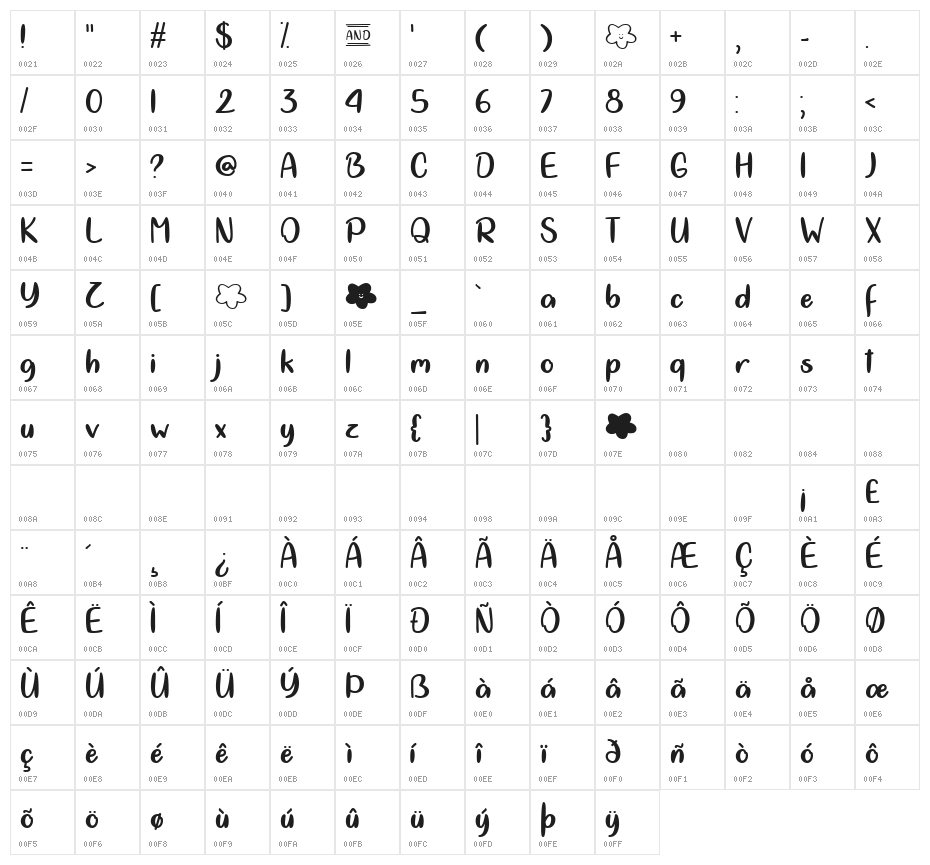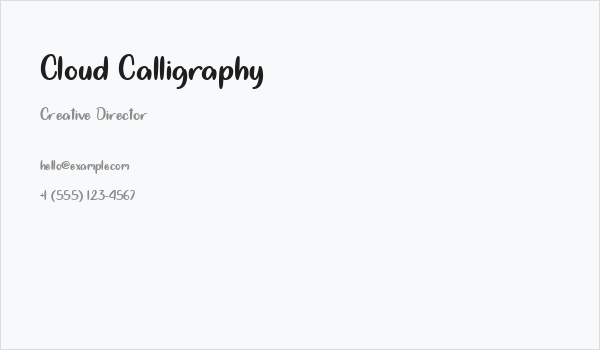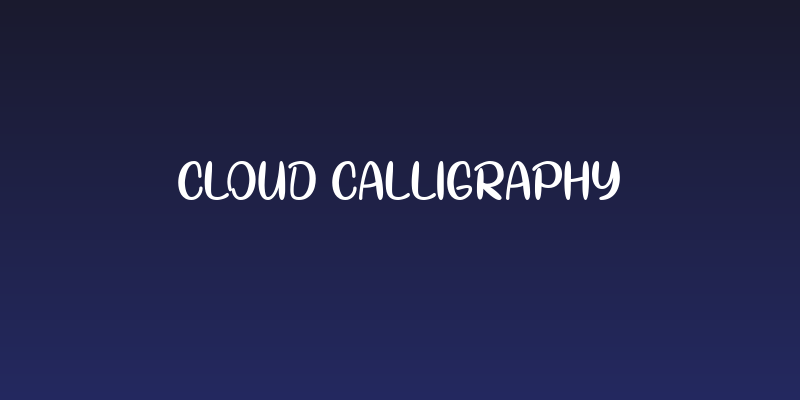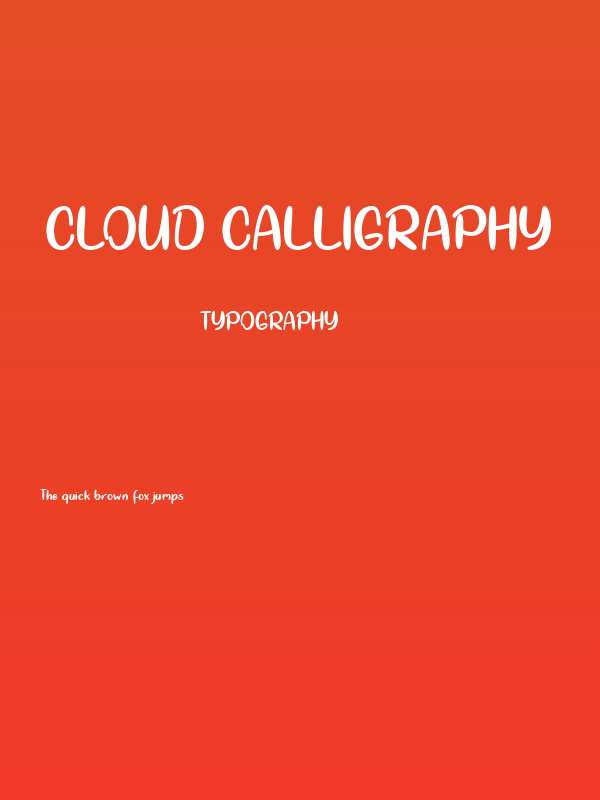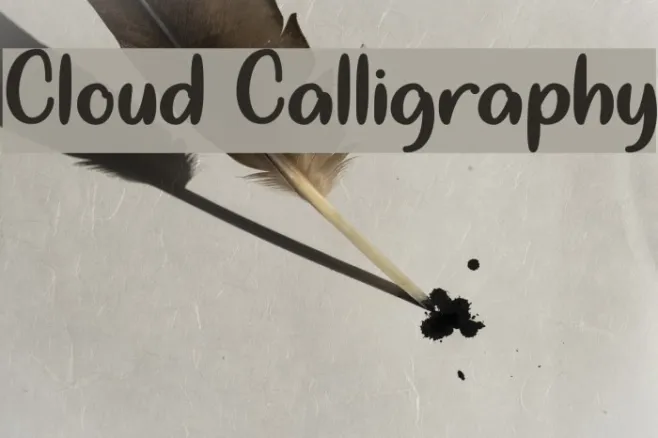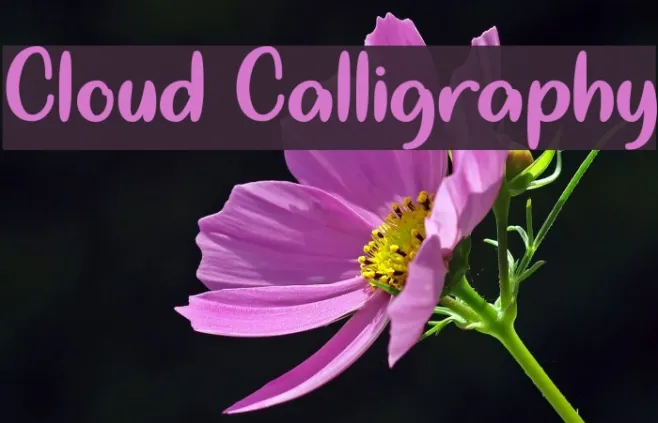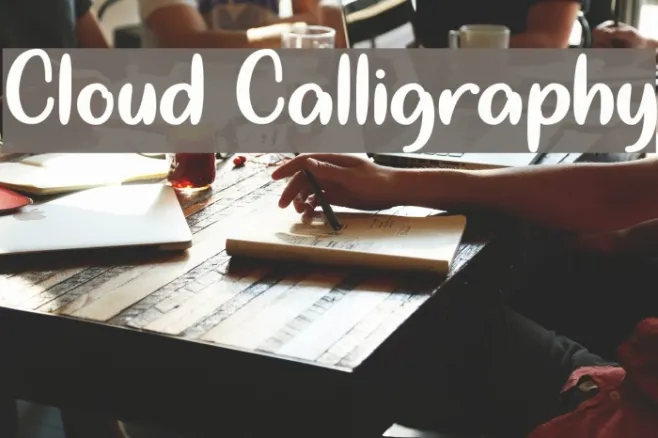
Cloud Calligraphy Font
Cloud Calligraphy Description
This playful and whimsical font features a handwritten style with smooth, rounded edges and a friendly appearance. The characters are bold and slightly condensed, giving them a strong presence while maintaining a casual and approachable feel. The uppercase and lowercase letters are well-balanced, with a consistent stroke width that adds to the font's readability. The numbers and special characters are designed to match the overall style, making them suitable for a variety of uses. The font's unique charm is enhanced by its slightly irregular shapes, which contribute to its hand-crafted look.
| Use Case | Logos, Headlines, Social Media |
| Proposed Projects | Ideal for greeting cards, children's books, playful branding, and social media graphics. |